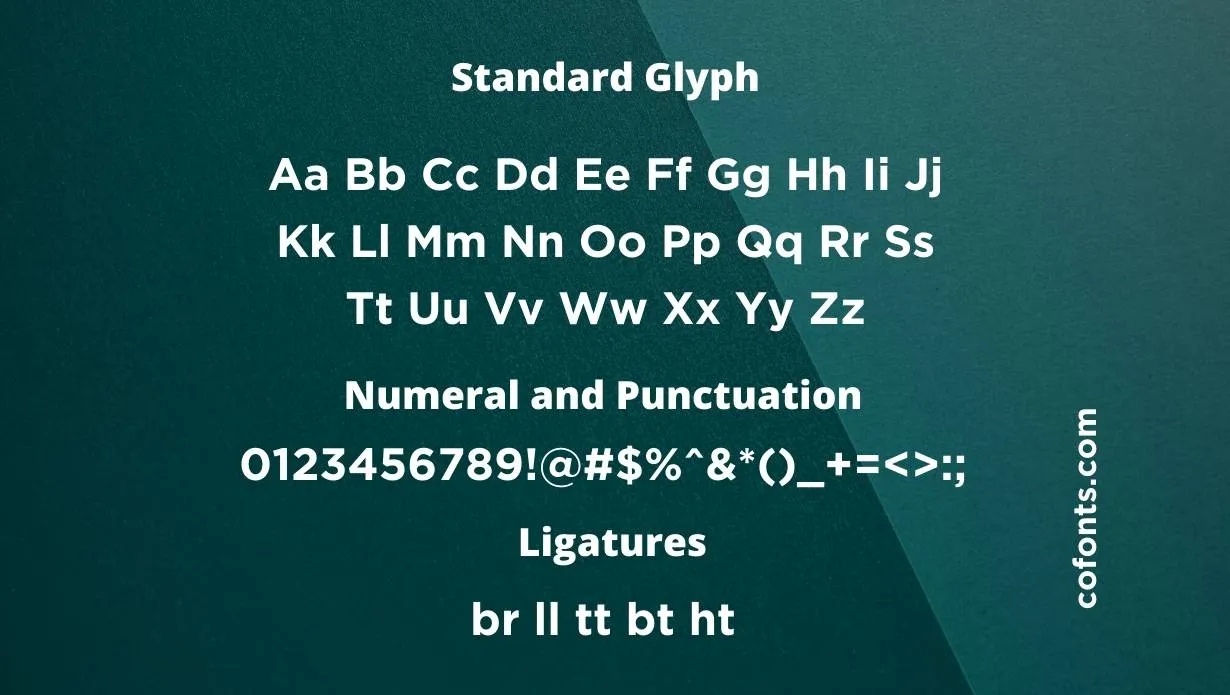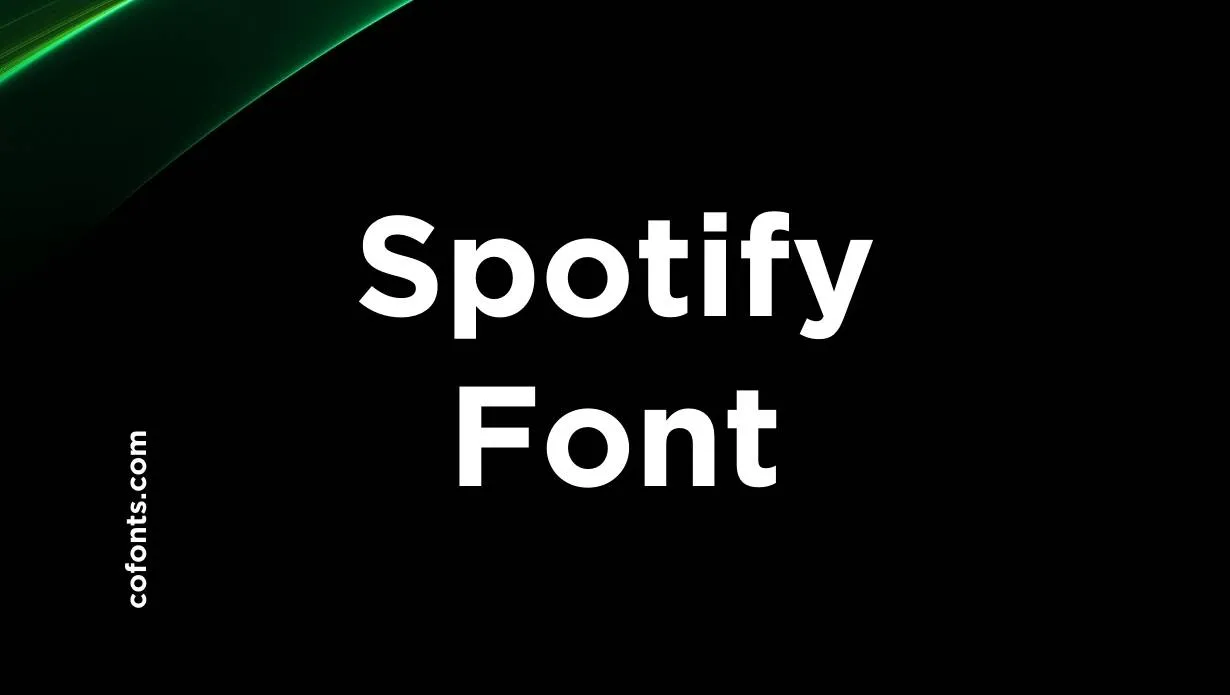
About Spotify Font
Spotify's primary brand font is a custom, proprietary typeface often referred to internally as "Spotify Mix." It is a circular geometric sans-serif, evolved from the commercially available "Circular" by Laurenz Brunner, which Spotify used in its earlier years. Designed for exceptional screen legibility and a friendly, neutral tone, it provides a consistent and modern visual foundation across all platforms and languages. This custom version ensures perfect brand alignment and supports a wide character set for global use, allowing the vibrant album art and interface elements to take center stage in the user experience.